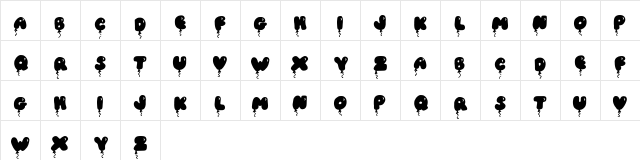
JI Solid Balloon Caps JI Solid Balloon Caps
| Designer | Jeri Ingalls |
Design Context for JI Solid Balloon Caps Typeface
JI Solid Balloon Caps is a composed and adaptable typeface that performs quietly and consistently across a wide range of design contexts.